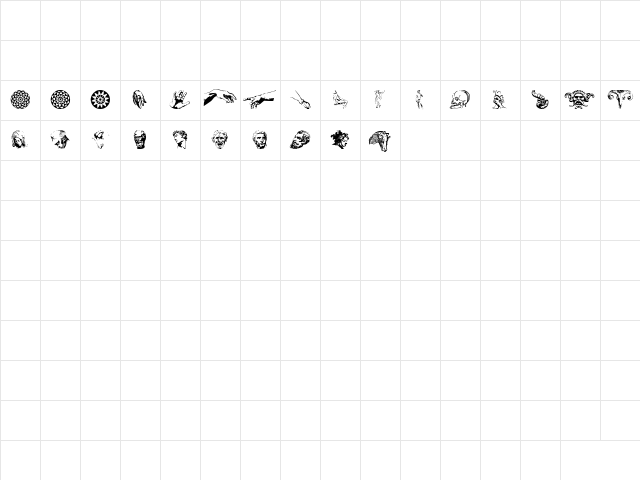
Complete Michelangelo Extras glyph index. Displaying only characters natively supported by Michelangelo Extras font.
Michelangelo is a composed and adaptable typeface that performs quietly and consistently across a wide range of design contexts.